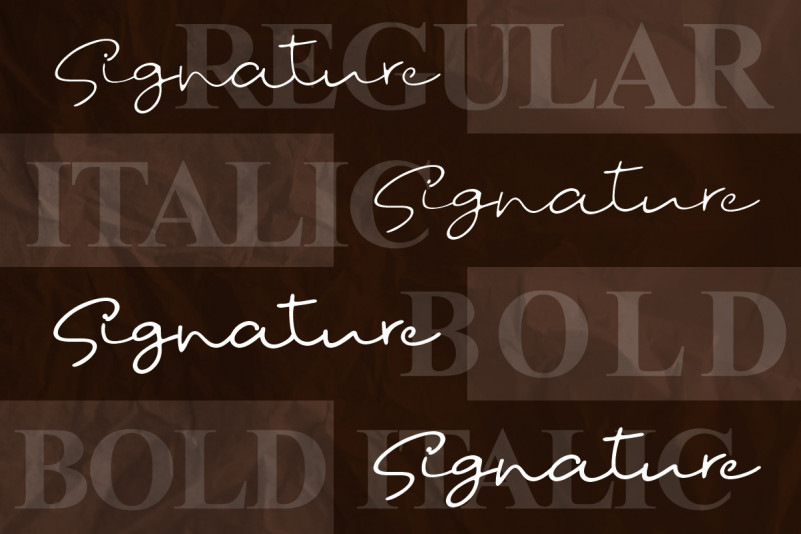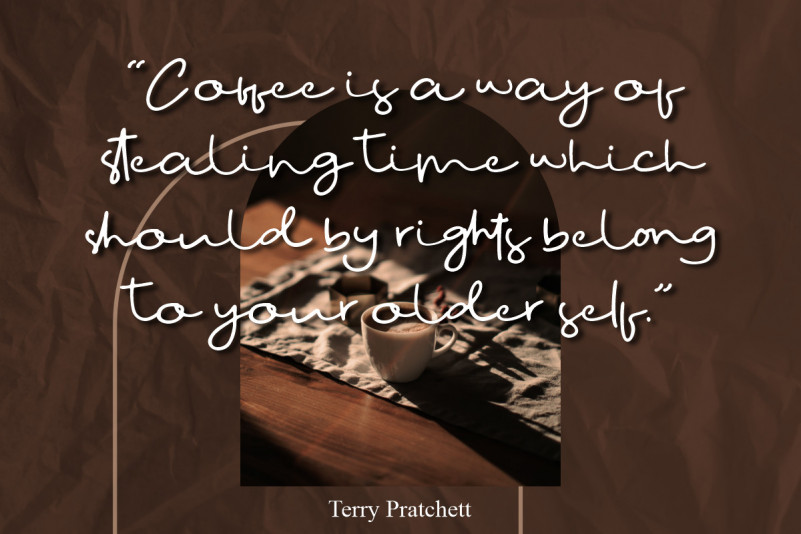
Fostone Natural Signature Script Font
Fostone Natural Signature Script Font is a signature style font with a natural looking ballpoint pen. Luxurious and elegant font. Font family with 4 version: regular, bold, italic, bolditalic. This signature font is perfect for, watermarks, branding, business, business cards, product logos, etc.